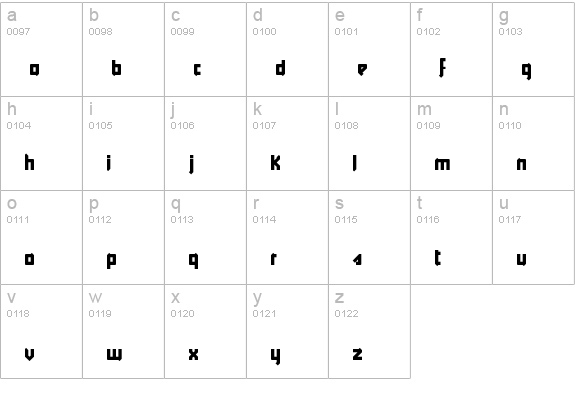
Introducing the Y2K Friendly Future font, a modern typeface inspired by the sleek and futuristic aesthetics of the turn of the millennium. This dynamic font is perfect for creating eye-catching designs that evoke a sense of nostalgia for the technological optimism of the early 2000s. With its clean lines and geometric shapes, Y2K Friendly Future font is versatile and ideal for a wide range of design projects, from branding and advertising to web design and social media graphics. Its bold yet playful style makes it stand out while remaining highly legible, ensuring that your message is conveyed with clarity and impact. Best of all, Y2K Friendly Future font is completely free to download at FontsMarket.com. Whether you're a professional designer looking to add a fresh new font to your collection or a hobbyist seeking to elevate your creative projects, this font is accessible to all. Embrace the spirit of the new millennium with Y2K Friendly Future font and let your designs shine with a touch of retro-futurism.